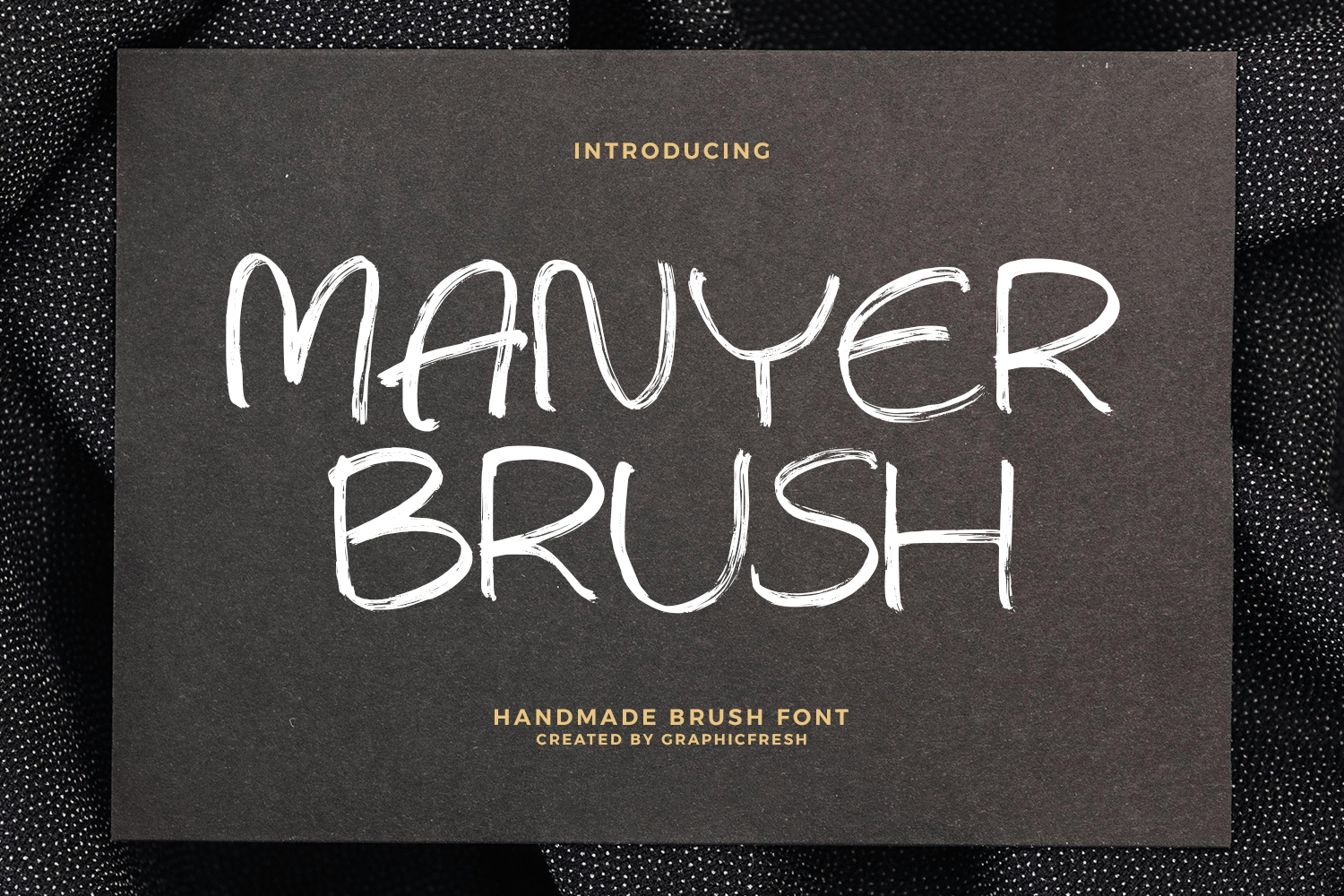
Manyer - Handmade Brush Font
Manyer is a handmade brush font crafted with bold strokes and authentic hand-painted character. Inspired by the natural movement of brush lettering, this font combines organic texture with expressive energy. Its slightly rough edges and dynamic flow create a strong artistic personality while maintaining good readability.